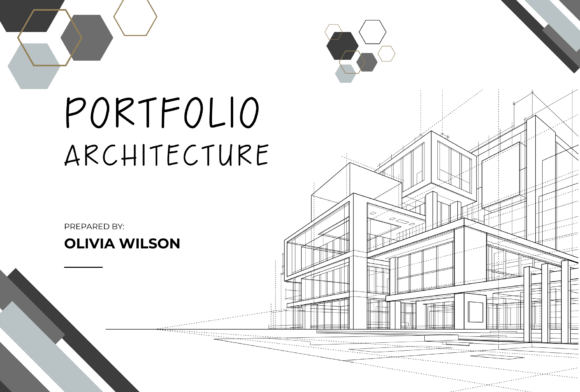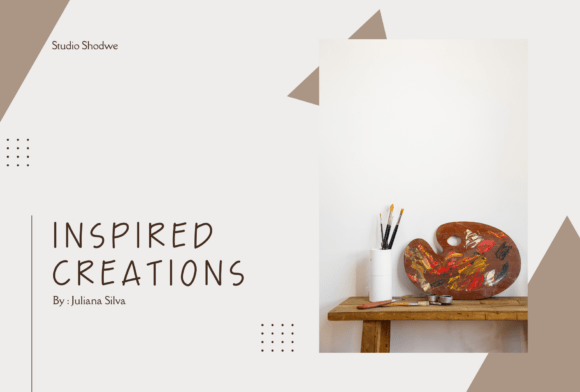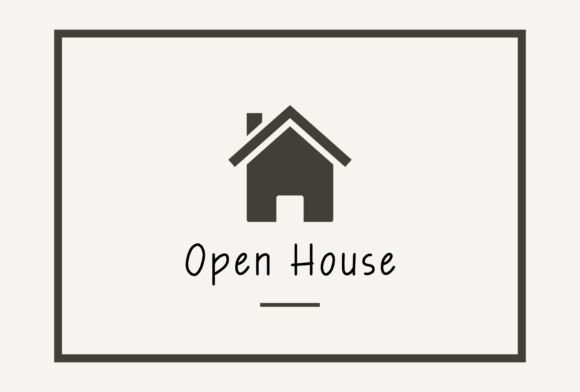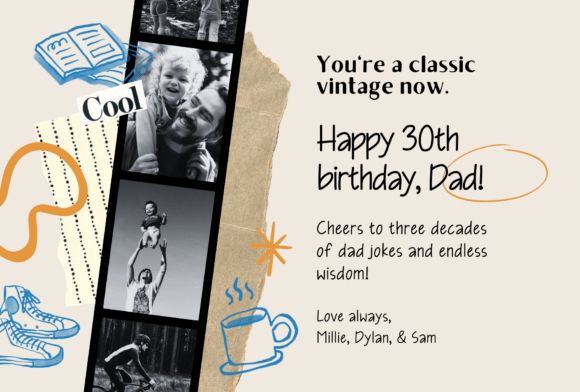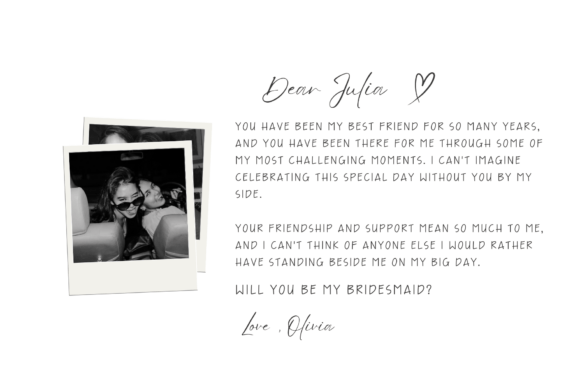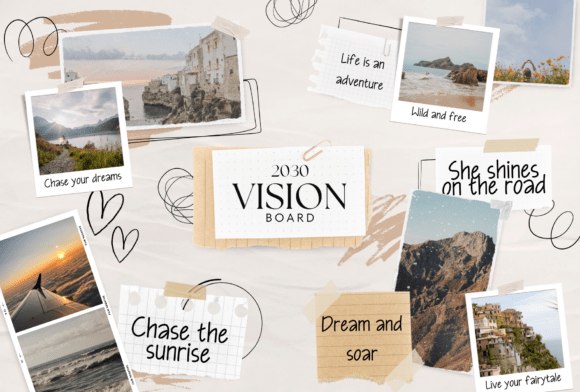
Introducing Architect Font: The Perfect Blend of Playfulness and Functionality
Are you a designer, crafter, or DIY enthusiast looking for a font that combines playfulness with functionality? Look no further than Architect Font! This delightful handwritten font is designed to bring a touch of warmth and personality to your designs, while maintaining clarity and readability. In this article, we’ll explore the unique features of Architect Font, its versatility, and the various ways you can use it to elevate your creative projects.
A Unique Blend of Casual and Architectural Feel
Architect Font is a masterful blend of casual hand-drawn strokes and clear letterforms, giving it a clean, architectural feel that’s both modern and friendly. The font’s playful handwritten style adds a touch of whimsy, making it perfect for creative and functional designs alike. Whether you’re designing educational materials, creative printables, or digital content, Architect Font is the perfect choice.
One of the standout features of Architect Font is its versatility. This font works beautifully for a wide range of applications, including:
- Planners and worksheets: Add a personal touch to your planners and worksheets with Architect Font’s friendly and approachable style.
- Posters and social media graphics: Make your posters and social media graphics stand out with Architect Font’s playful and modern vibe.
- Kids’ projects: Architect Font is perfect for kids’ projects, adding a fun and youthful touch to educational materials and creative activities.
- Journaling: Use Architect Font to add a personal touch to your journaling and make it more visually appealing.
- Modern architectural or urban-themed designs: The font’s clean, architectural feel makes it perfect for modern architectural or urban-themed designs.
Why Choose Architect Font?
So, why should you choose Architect Font for your next project? Here are just a few reasons:
- Readability: Architect Font is designed to be easy to read, making it perfect for body text and headings.
- Warmth: The font’s natural handwritten style adds a touch of warmth to your designs, making them more inviting and engaging.
- Personality: Architect Font has a friendly and approachable personality that shines through in your designs.
- Flexibility: Use Architect Font for both digital and print projects, from social media graphics to posters and worksheets.
Designing with Architect Font
Designing with Architect Font is a breeze, thanks to its clean and intuitive design. Here are a few tips to get you started:
- Pair it with bold colors: Architect Font looks great paired with bold, bright colors that complement its playful style.
- Experiment with textures: Add texture to your designs with Architect Font, using techniques like watercolor or hand-drawn elements.
- Keep it simple: Don’t be afraid to keep your designs simple and clean, letting Architect Font’s natural style shine through.
In conclusion, Architect Font is a versatile and charming handwritten font that’s perfect for designers, crafters, and DIY enthusiasts. Its unique blend of casual and architectural feel, combined with its friendly and approachable personality, make it the perfect choice for a wide range of creative projects. Whether you’re designing educational materials, creative printables, or digital content, Architect Font is sure to add a touch of warmth and personality to your work.